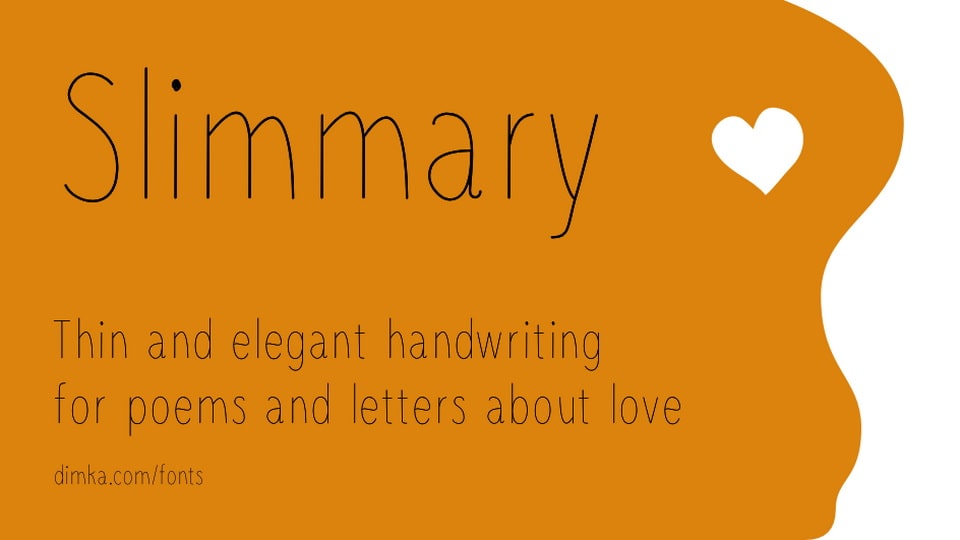
Download Slimmary font, a casual, thin and elegant handwritten typeface for poems and letters about love with its graceful strokes and understated charm.
Designer: Dimka